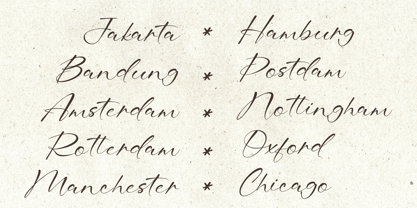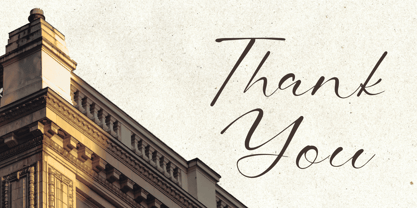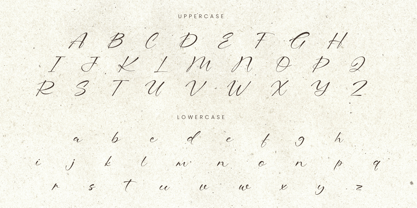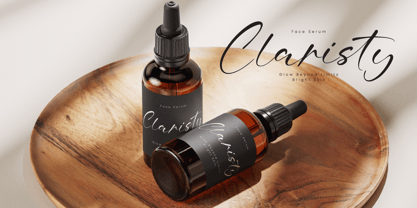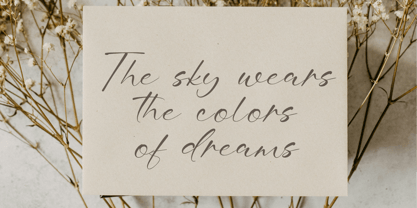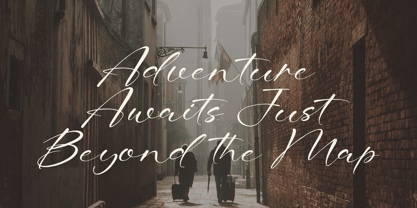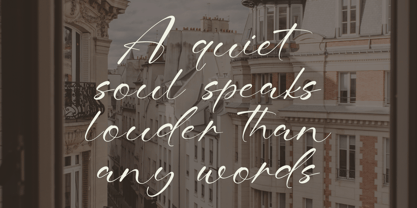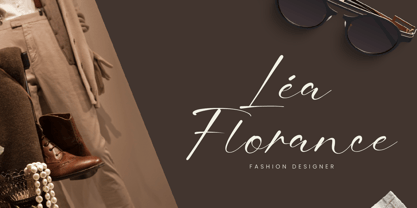
Lucia Arditsy
Bring a Personal Touch to Every Design
Lucia Arditsy is a signature-style font with flowing ink strokes that mimic natural handwriting. With its smooth and dynamic character, this font delivers a luxurious, warm, and professional feel in one package.
Why Choose Lucia Arditsy?
• Natural & Elegant Appearance – Designed to resemble authentic handwriting, giving a more personal and exclusive impression to your projects.
• Versatile for Various Needs – Perfect for branding, business logos, social media, product packaging, wedding invitations, and print designs.
• Enhances Visual Appeal – Adds an elegant and distinctive touch to any design, making it stand out and leave a lasting impression.
Whether for professional business or creative projects, Lucia Arditsy is ready to help you create a unique and stunning visual identity.